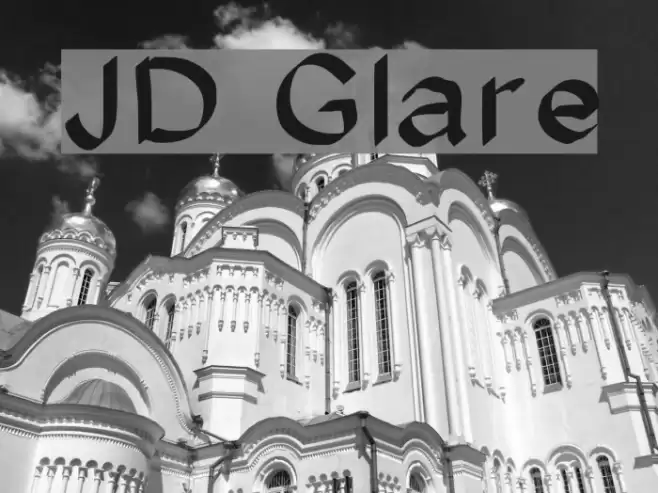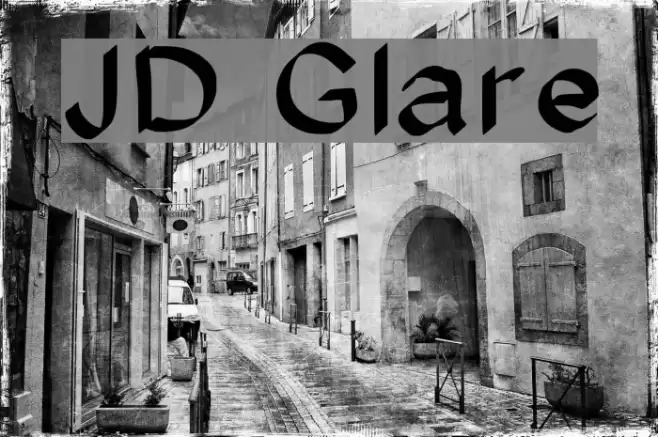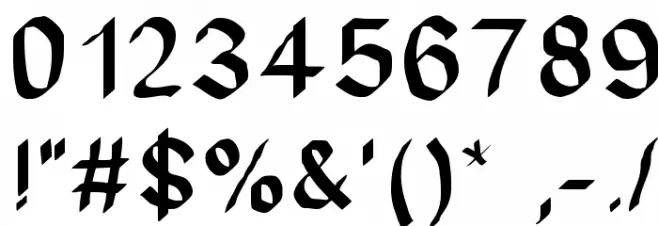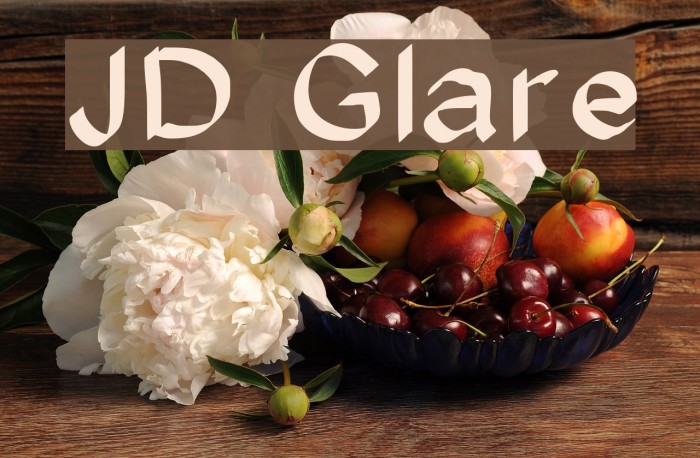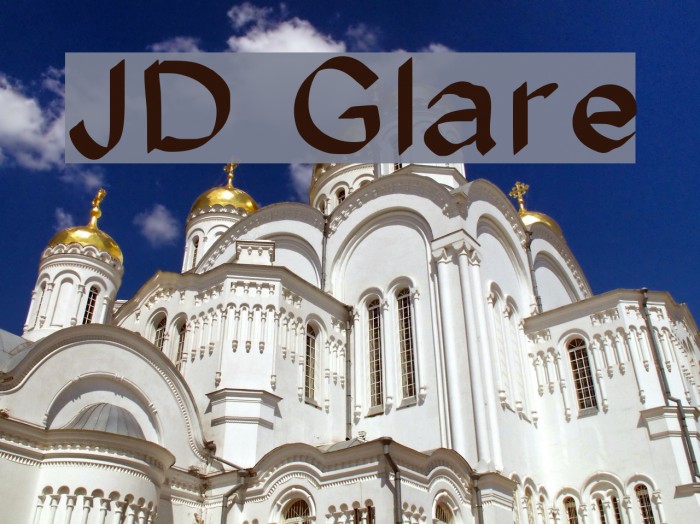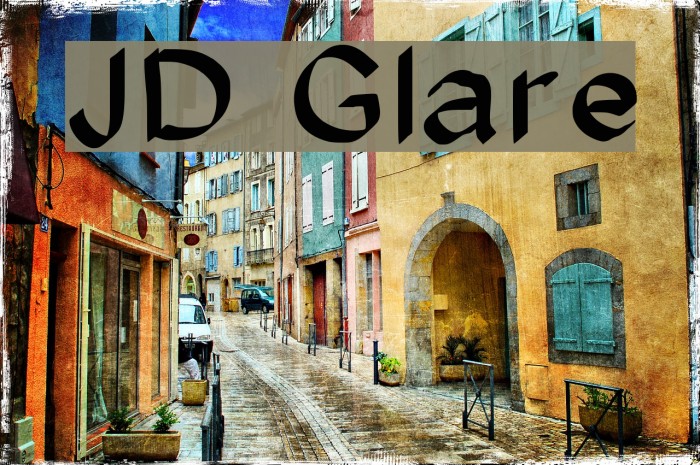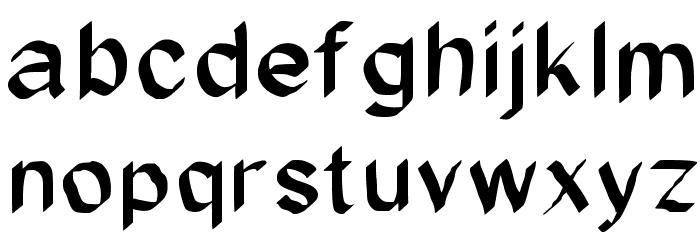
JD Glare Font
JD Glare Description
This font features a bold and dynamic style with sharp, angular edges that give it a striking appearance. The uppercase letters have a distinctive, slightly slanted design, while the lowercase letters maintain a consistent flow with a touch of flair. The numerals are bold and easily readable, complementing the overall aesthetic. Special characters are crafted with the same attention to detail, ensuring a cohesive look across all glyphs. This font's unique style makes it ideal for projects that require a strong visual impact.
A bold, angular font with a dynamic and striking appearance from Uncategorized fonts.
- Proposed Projects: Ideal for branding, posters, and headlines that require a bold statement.